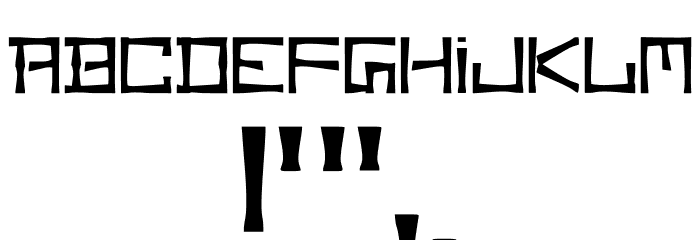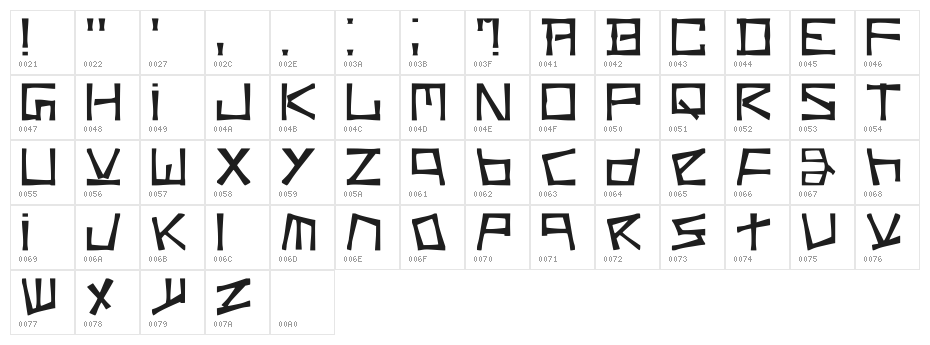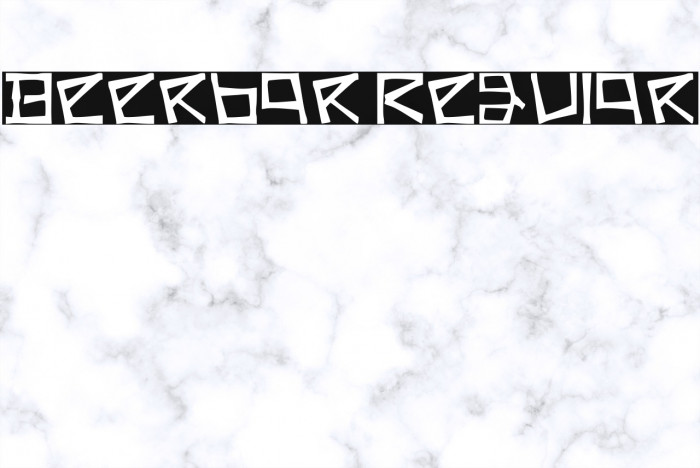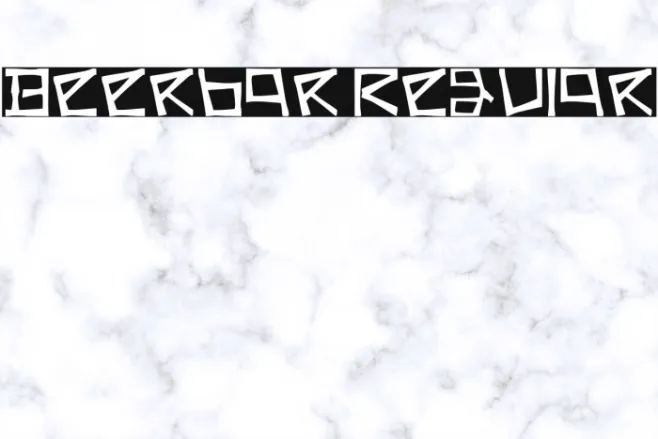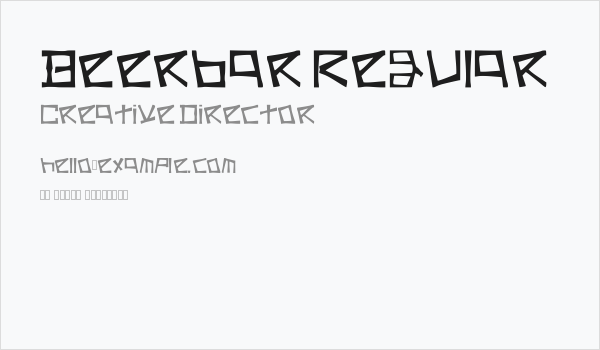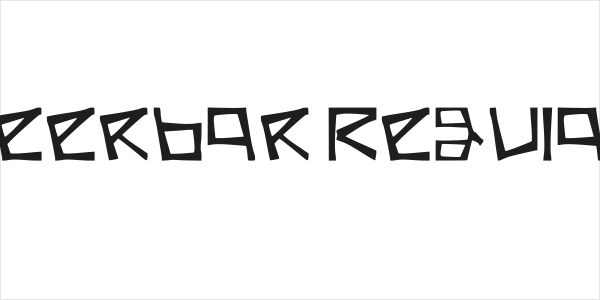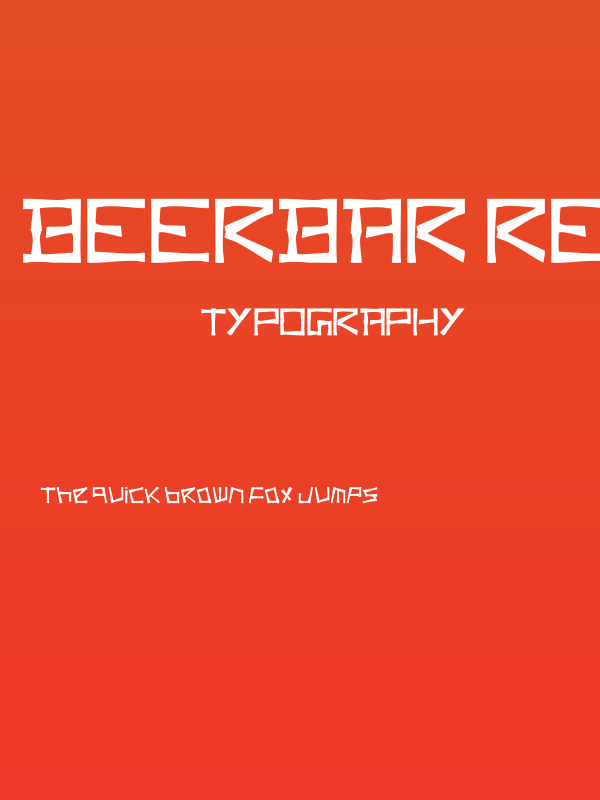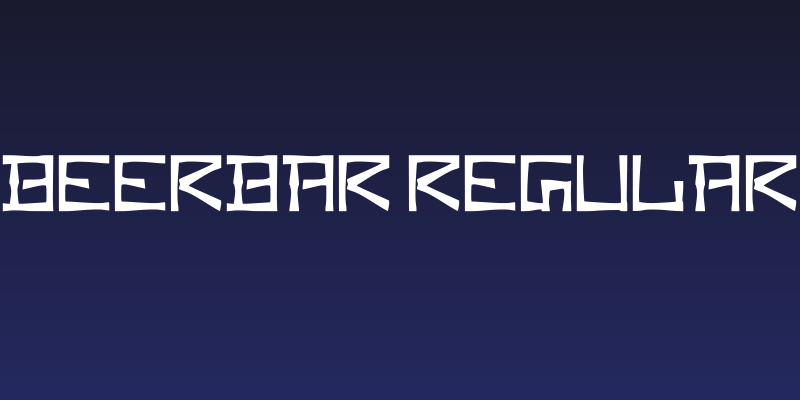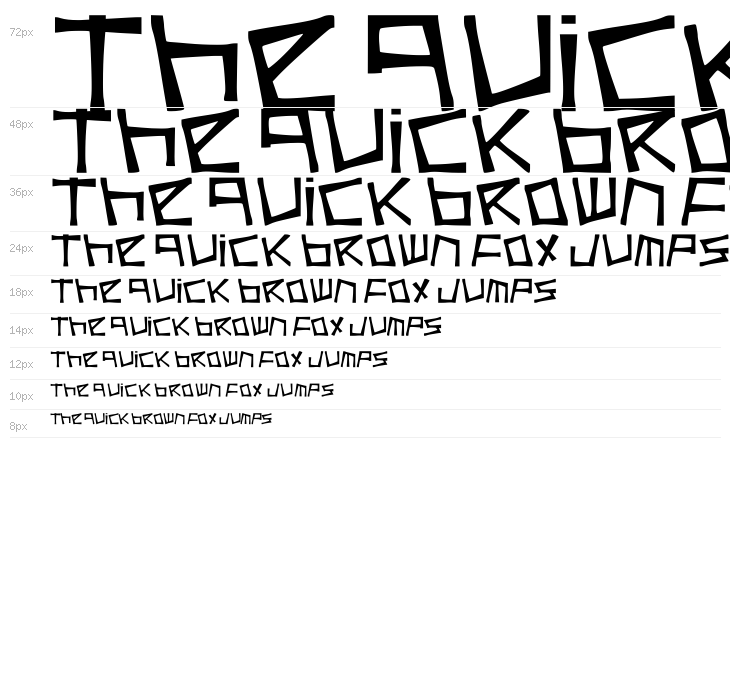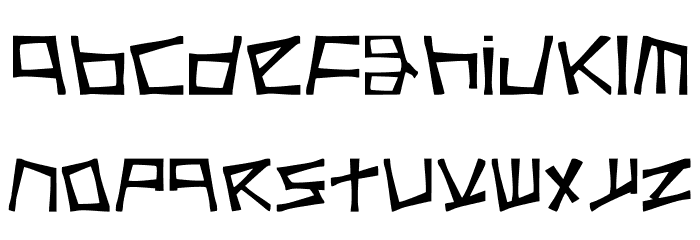
Beerbar Regular Font
Beerbar Regular Description
This font features a bold and angular design with a distinct geometric style. The characters exhibit a unique, hand-drawn appearance with sharp edges and varying line thicknesses, giving it a dynamic and energetic feel. The uppercase and lowercase letters maintain a consistent style, while the numbers and special characters integrate seamlessly with the overall design. The font's playful yet structured form makes it suitable for creative and eye-catching projects.
| Proposed Projects | Ideal for posters, branding, album covers, and any project requiring a bold, artistic touch. |